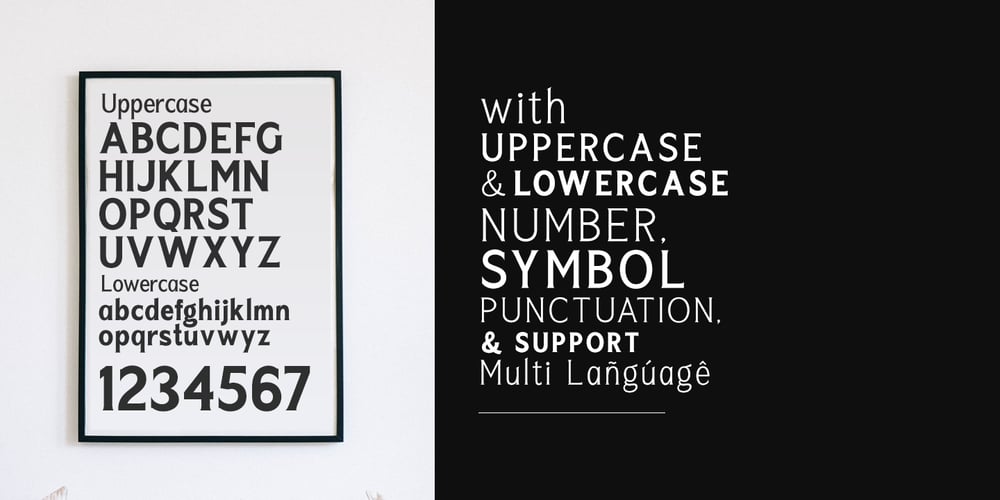
Seriously Font Family was designed by Sarid Ezra and published by Letterhend. Seriously contains 3 styles and family package options. Here come our latest product with serif typeface called Seriously. This typeface has 3 different weights that you can use according your needs. It has elegant look, very suitable for corporate branding, logo, document, social media design, presentation, print design, web, etc. This typeface is comes in uppercase, lowercase, punctuation, symbols, numerals, stylistic set alternate, ligatures, etc also support multilingual.